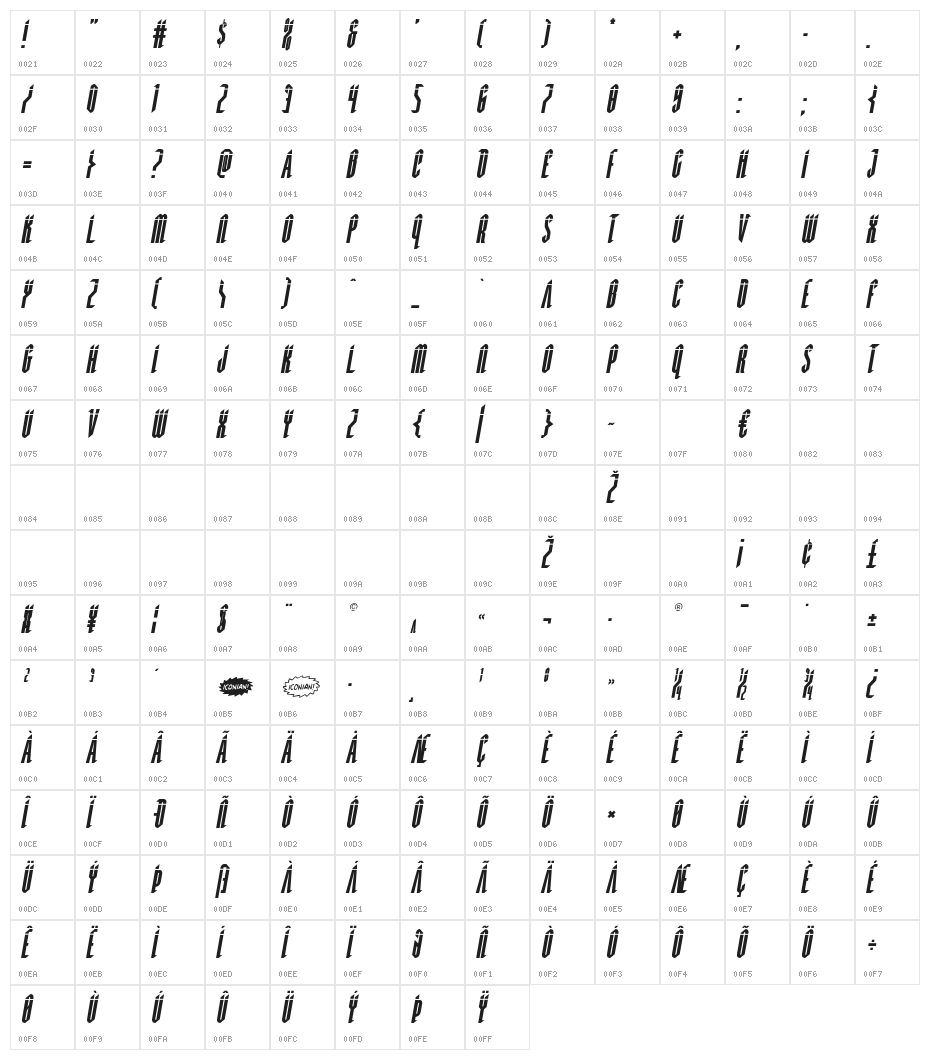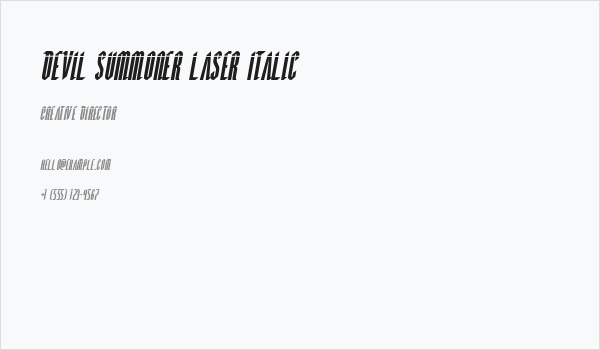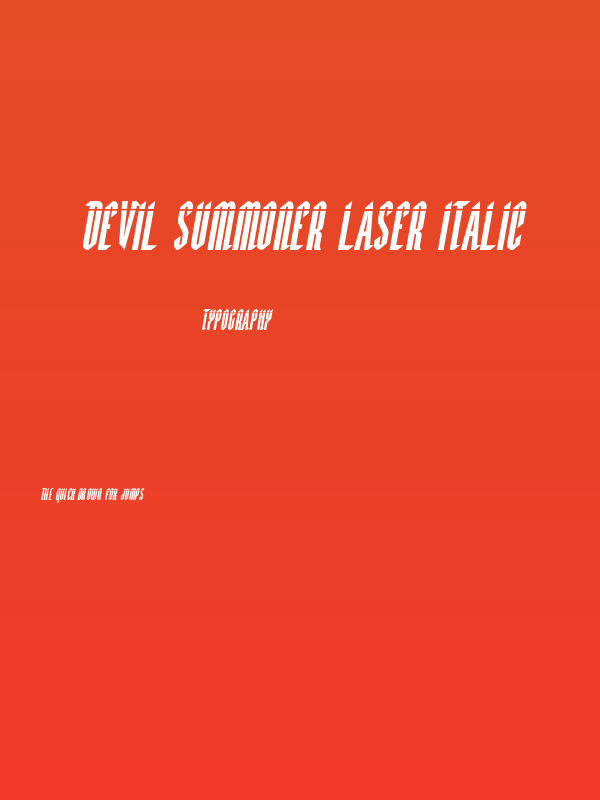
Devil Summoner Laser Italic Font
Devil Summoner Laser Italic Description
This font features a bold and dynamic style with a distinct italic slant, giving it a sense of movement and energy. The characters are sharply angled, with a futuristic and edgy appearance. The strokes are thick and consistent, providing a strong visual impact. The uppercase and lowercase letters maintain a cohesive design, while the numbers and special characters complement the overall aesthetic. This font is ideal for projects that require a modern and assertive look.
| Proposed Projects | Ideal for sci-fi themed designs, video game titles, posters, and branding that requires a modern and energetic feel. |